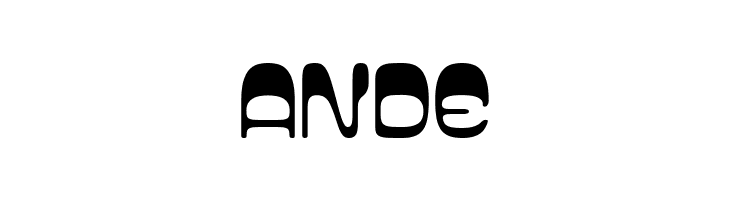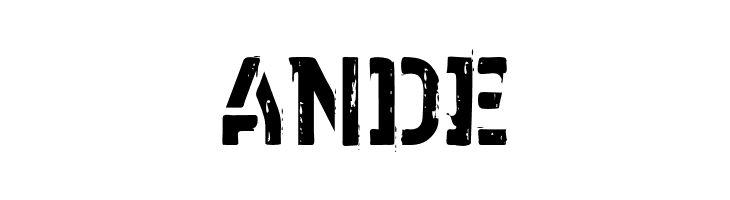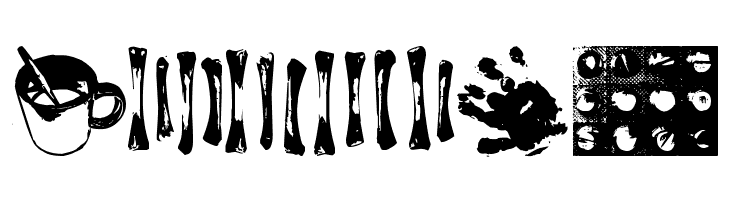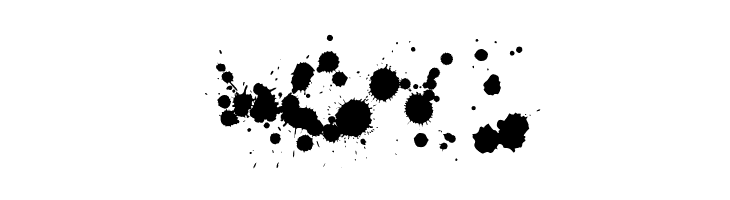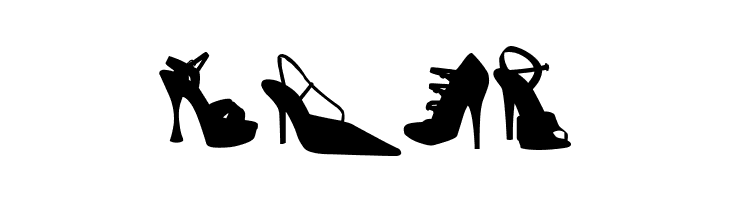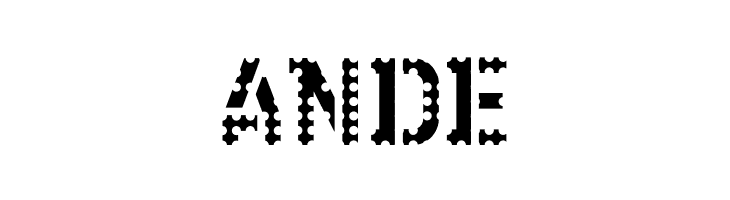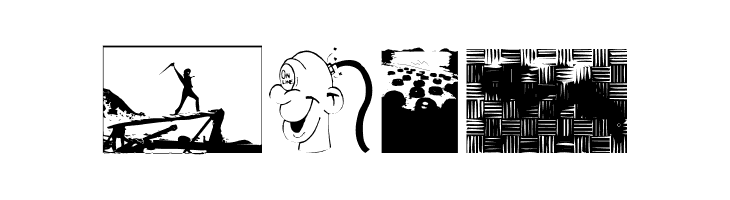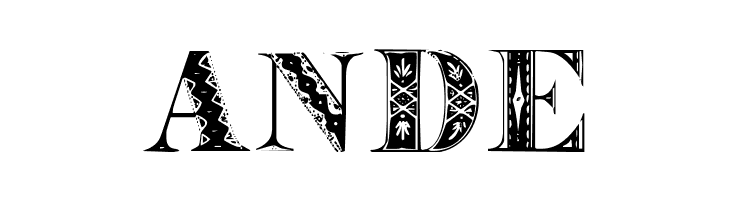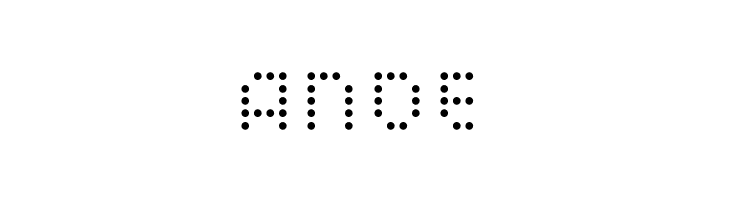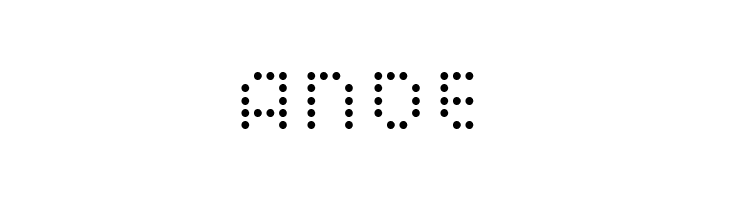
A sleek, narrow, and oblique font with a modern and dynamic style.
A modern, oblique font with bold, consistent strokes and excellent readability.
A bold, modern font with thick strokes and strong presence.
A bold, ultra-extended font with thick strokes and wide letterforms.
A bold, ultra-extended oblique font with a modern and dynamic style.
A bold, ultra-narrow font with a modern and impactful style.
A bold, ultra-narrow, oblique font with a modern and dynamic style.
A bold, italicized font with high contrast and a modern style.
Ornate pictorial font inspired by Javanese wayang shadow puppets.
A display font made from high-heeled shoe silhouettes.
A pixelated, dot-based font with a retro digital aesthetic.
A bold, pixelated font with circular cutouts, offering a retro digital look.
A modern, dotted font with a digital, tech-inspired aesthetic.
A modern, dotted font with a digital, pixelated appearance.
An artistic font with ink splatter-like characters, offering a bold and dynamic appearance.
A bold, futuristic font with rounded shapes and dot patterns, ideal for tech-inspired designs.
A bold, geometric font with a futuristic and digital style.
A display font made from high-heeled shoe silhouettes.
A playful, pixelated font with a dot matrix style, ideal for retro digital themes.
A bold, pixelated font with circular cutouts, perfect for digital or retro-themed designs.
A dot matrix style font with a retro, digital display aesthetic.
A modern dot matrix font with evenly spaced dots forming each character.
An artistic font with ink splatter-inspired characters, offering a chaotic and expressive style.
A bold, distressed font with a rugged, graffiti-like appearance.
A bold, perforated stencil font with a modern industrial aesthetic.
A collection of artistic and illustrative designs, each character is a unique scene or object.
A highly stylized, abstract font with angular, wedge-like shapes.
A dynamic, brush-like font with an expressive, hand-drawn style.
A bold, rounded font with a futuristic and playful style.
An artistic font featuring human figures forming each character.